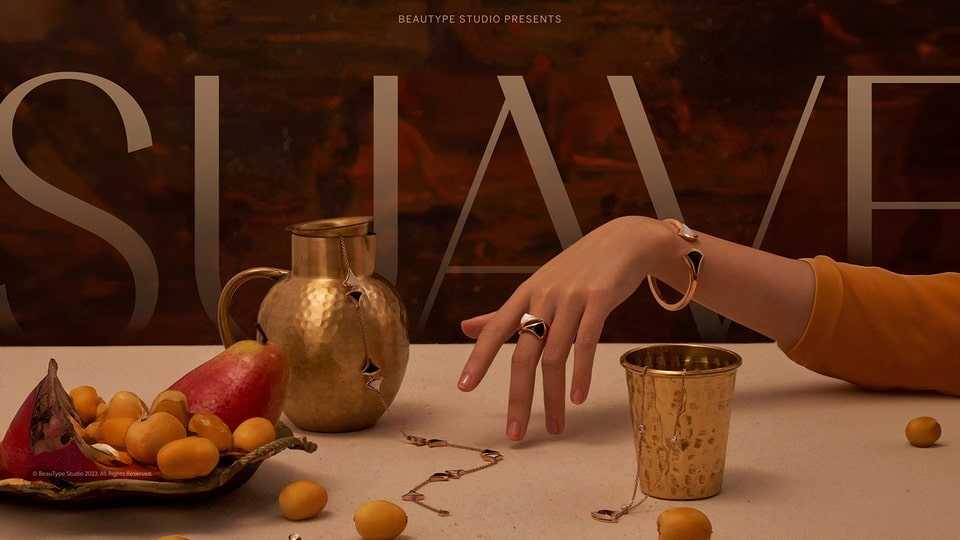
Download BT Suave font, a unique display typeface meticulously crafted to evoke a sense of lightness, sophistication, and fluidity in design. With its modern form, high-contrast lines, and attention to detail, BT Suave seamlessly integrates into the branding of fashion labels, cosmetics and so on.
Designer: BeauType Studio